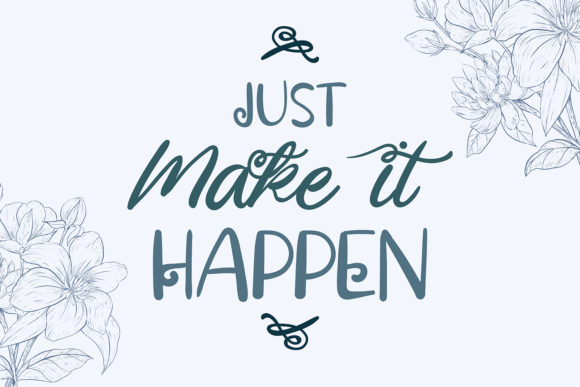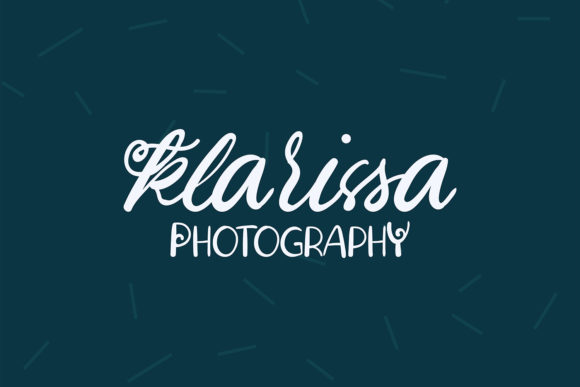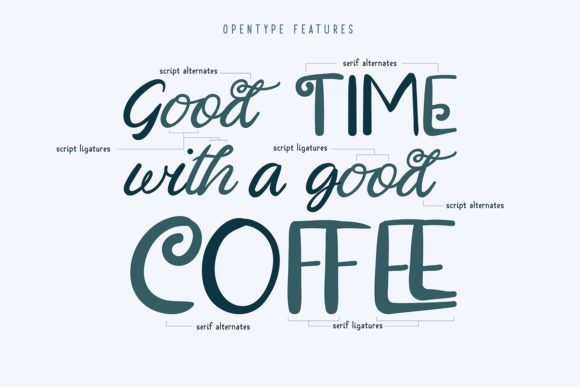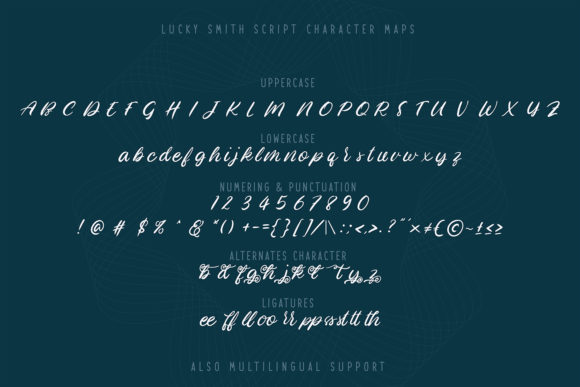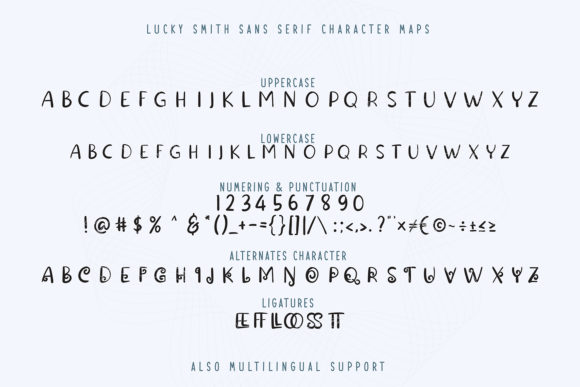
Introduction to Lucky Smith Font
Do you remember that moment when a single font choice made all the difference in your creative project? For many designers, that ‘aha’ moment is a rare gem. But what if I told you about a font that can elevate your designs to the highest levels, making them shine like never before? Welcome to the world of Lucky Smith Font, a spectacular duo font that’s about to become your new go-to design resource.
Lucky Smith Font is a game-changer for designers who crave high-quality fonts that can make their work stand out. With its perfect blend of sans serif and script styles, this font is incredibly versatile and can be used in a wide range of creative projects. Whether you’re working on a logo, brochure, or website, Lucky Smith Font is sure to add that extra oomph to your design.
Key Features of Lucky Smith Font
- High-quality design: Lucky Smith Font is crafted with attention to detail, making it a great choice for creative projects.
- Unique characteristics: The font features a unique, handwritten style with a mix of cursive and script elements, making it perfect for creative projects.
- Perfect for creative projects: Lucky Smith Font is ideal for use in logos, branding, invitations, and other design projects where a high-quality, unique font is needed.
Honest Review: Lucky Smith Font
I recently stumbled upon the Lucky Smith Font and I’m excited to share my thoughts on this design resource. The first thing that caught my eye was its high quality and unique aesthetic, making it perfect for creative projects.
One of the standout features of the Lucky Smith Font is its versatility. I found it to be incredibly easy to use and the transparent background made it seamless to integrate into my designs.
- High-quality design with a unique aesthetic
- Easy to use and versatile
- Perfect for creative projects and design resources
- May not be suitable for all types of designs (e.g. technical or formal documents)
- Limited customization options
Tips for Getting the Most Out of Lucky Smith Font
For the best results, use the Lucky Smith Font in conjunction with other high-quality design elements, such as images and graphics. Experiment with different font sizes and styles to create visual interest and balance in your design. Additionally, consider using the font with a transparent background to create a seamless and professional design.